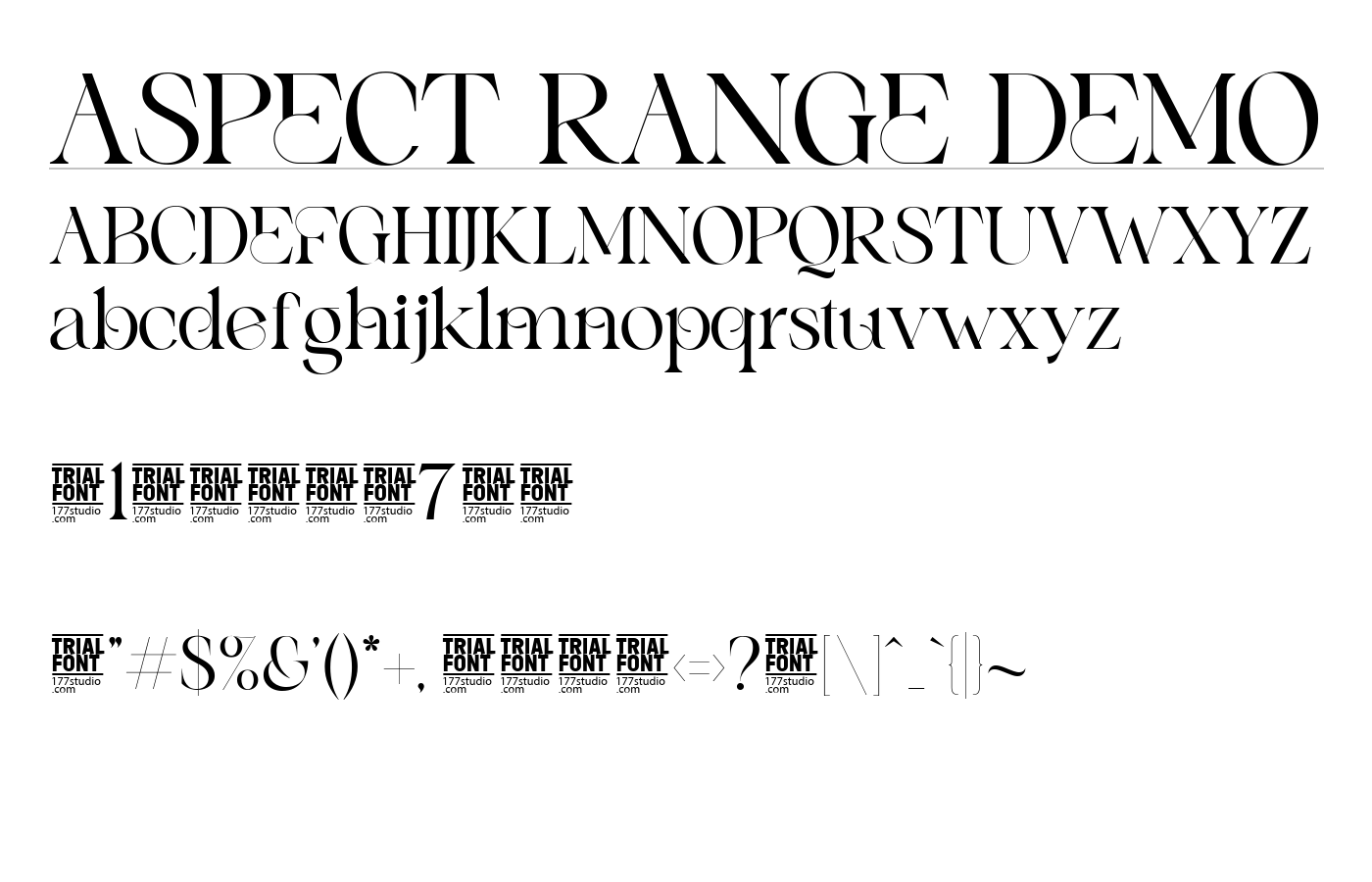
Aspect Range Demo is a sophisticated serif font featuring high contrast between thick and thin strokes, with elegant, sharp serifs that give it a refined and modern feel. Its tall, narrow letterforms and unique stylistic details make it perfect for luxury branding, editorial headlines, and stylish packaging where a striking, upscale look is desired. This font combines classic elegance with contemporary design, making it ideal for projects aimed at a chic, fashionable audience.
ASPECT RANGE DEMO Font
About ASPECT RANGE DEMO Font
| Font family | ASPECT RANGE DEMO Font |
| Designer | 177Studio.com |